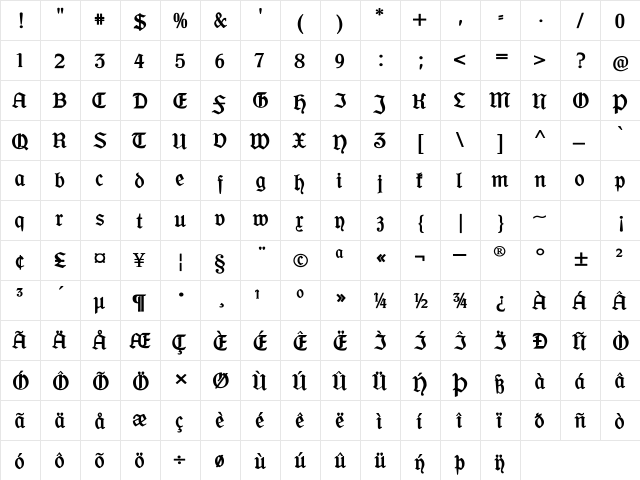
OffenbacherSchwabacherCAT Regular
| Foundry | Peter Wiegel |
| Designer | Kurt Wanschura um 1900 |
Design Context for OffenbacherSchwabacherCAT Typeface
OffenbacherSchwabacherCAT is a composed and adaptable typeface that performs quietly and consistently across a wide range of design contexts.